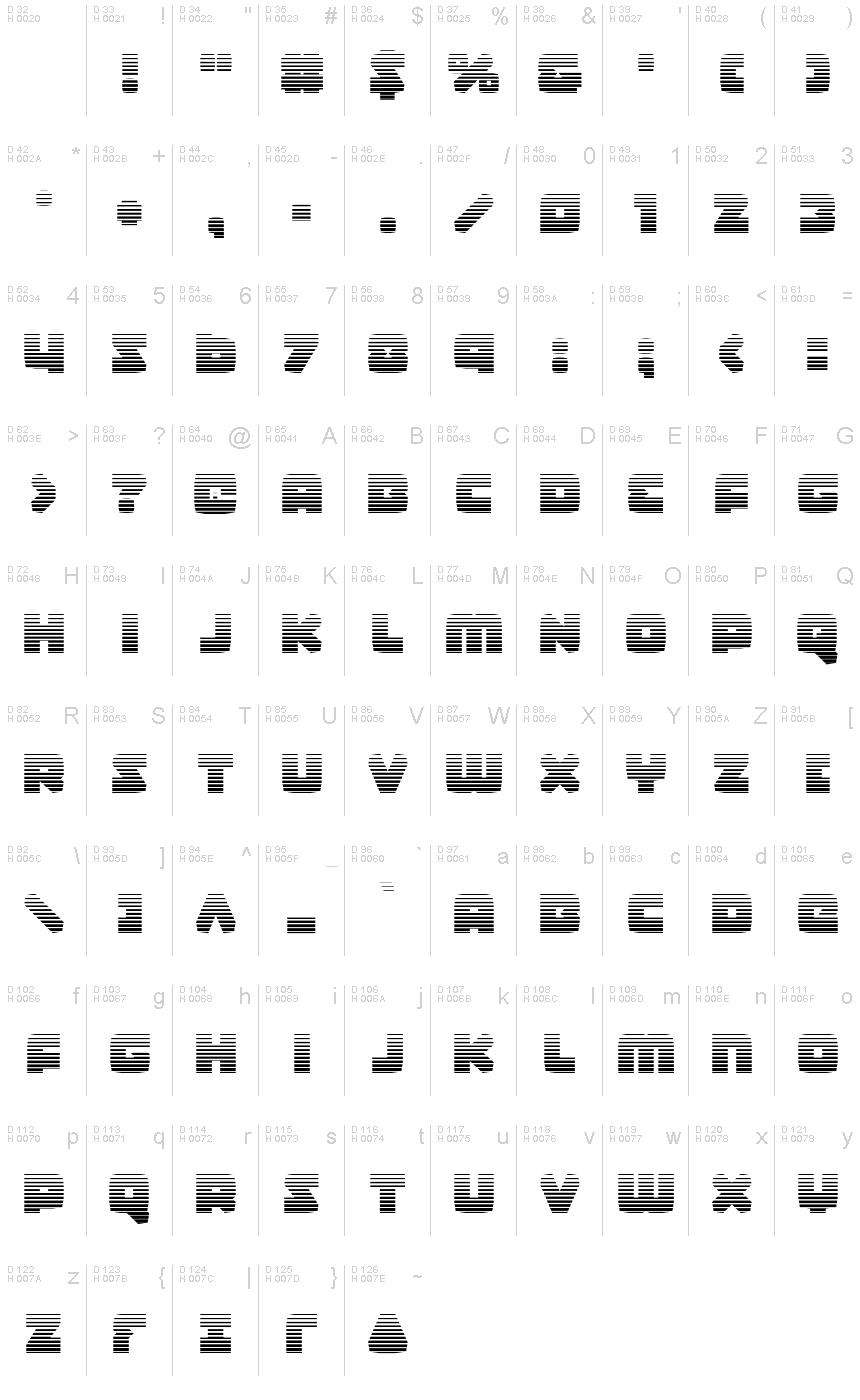
Gamer Spot Gradient
Attention all gamers and tech enthusiasts! Meet Gamer Spot Gradient, the latest addition to the iconic Gamer Spot font family by Iconian Fonts. This ultra-bold and extra-expanded display font is perfect for projects that require a bold and attention-grabbing approach. Its techno style adds a futuristic touch, making it ideal for gaming websites, tech blogs, and futuristic branding campaigns. The unique gradient effect adds depth and dimensionality to your designs, ensuring they stand out from the crowd. So whether you're designing a gaming logo or creating an eye-catching poster for your next LAN party, Gamer Spot Gradient is the perfect font choice to make your project pop!